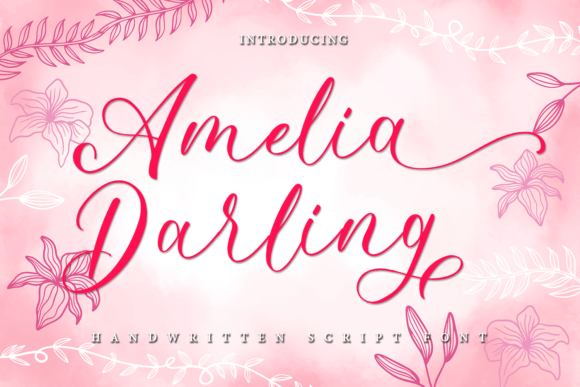
Find Your Unique Touch with the Amelia Darling Font
You’ve stared at a blank page for what feels like an eternity, trying to come up with the perfect design concept. Suddenly, a spark of creativity strikes, and you envision a luxurious, handwritten masterpiece that demands attention. It’s moments like these that make being a designer so thrilling.
Enter the Amelia Darling Font, a stunning, modern handwritten font that’s taking the design world by storm. This elegant font is designed to add a touch of sophistication to your designs, making them stand out from the crowd. Whether you’re a seasoned pro or just starting out, the Amelia Darling Font is an invaluable tool in your creative arsenal.
With its unique, thin lines and luxurious appearance, the Amelia Darling Font is a game-changer for designers looking to elevate their work. Its versatility makes it perfect for a wide range of projects, from branding and advertising to digital media and print materials.
Amelia Darling Font Key Features
- Font Family: Amelia Darling is a script font family designed to resemble a handwritten style.
- Unique Characteristics: The font features beautiful, flowing connections between letters, giving it a unique and elegant appearance.
- Script Variations: Amelia Darling includes multiple script variations, including uppercase and lowercase letters, as well as punctuation and special characters.
Amelia Darling Font Review
The Amelia Darling font is a beautiful, elegant script font that adds a touch of sophistication to any design project. I’ve had the pleasure of working with it, and I must say, it’s a delight to use. ✨ The font’s flowing lines and intricate details make it perfect for creating a sense of luxury and refinement.
- ✨ Elegant and refined feel: The Amelia Darling font is perfect for projects that require a touch of sophistication and elegance.
- ✨ High-quality design: The font’s intricate details and flowing lines make it a joy to work with.
- ✨ Versatile: The font can be used for a variety of projects, from invitations to branding materials.
- ⚠️ Limited character set: The font may not include a comprehensive character set, which could limit its use in certain projects.
- ⚠️ May require manual adjustments: Depending on the project, the font may require manual adjustments to ensure proper spacing and alignment.
The Amelia Darling font is a beautiful and elegant script font that is perfect for projects that require a touch of sophistication and refinement. While it may have some limitations, its high-quality design and versatility make it a great addition to any designer’s toolkit.
Amelia Darling Font Practical Application Guide
Tip: Use Amelia Darling Font for titles and headings to add a touch of elegance to your design.
Tip: Use Amelia Darling Font in combination with other elegant fonts to create a sophisticated look.
Amelia Darling Font is perfect for:
- Baby shower invitations and decorations
- Vintage-themed designs and graphics
- Formal events and announcements
Remember to use Amelia Darling Font in combination with other elegant fonts and design elements to create a sophisticated look.
Alternatives to Amelia Darling Font
The Great Vibes Font is a beautiful, elegant script font that is perfect for adding a touch of sophistication to your designs. It features flowing lines and a romantic feel, making it ideal for wedding invitations, quotes, and other creative projects.
Comparison to Amelia Darling Font: While Amelia Darling Font has a more feminine and vintage feel, Great Vibes Font has a more modern and elegant look. Great Vibes Font is also more versatile and can be used for a wider range of projects.